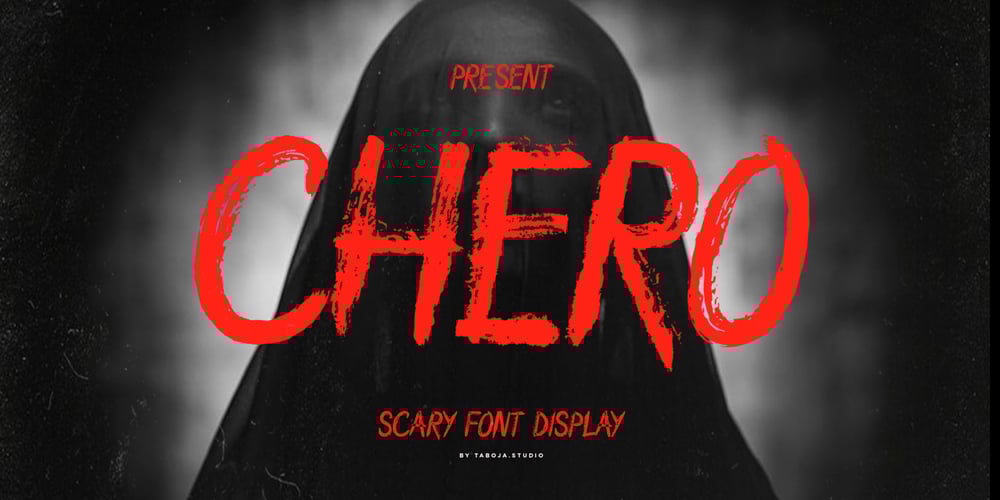
Chero Scary Brush Display Font Family was designed by Yusilo Oktaprima Ardani and published by Taboja Studio. Chero Scary Brush Display contains 1 styles and family package options. Introducing Chero The Spooky Horror Font brings an eerie and unsettling vibe to your projects, making it perfect for horror movie posters, Halloween-themed designs, or any project that demands a touch of fear-inducing typography. Its jagged edges and haunting curves create an ominous atmosphere, capturing the essence of the macabre.Unleash the terror in your designs – try our Spooky Horror Font today and watch as it transforms your projects into spine-chilling masterpieces.Chero Features: Regular Uppercase with 2 Styles Various Alternates Numerals & Punctuation Accented characters Multilingual Support Unicode PUA Encoded We highly recommend using a program that supports OpenType features and Glyphs panels such as Adobe Illustrator, Adobe Photoshop CC, Adobe Indesign, or CorelDraw, so you can see and access all Glyph variations.While using this product, if you encounter any problem or spot something we may have missed, please don’t hesitate to drop us a message. We’d love to hear your feedbacks in order to further fine-tune our products.Stay creative and have a wonderful day.